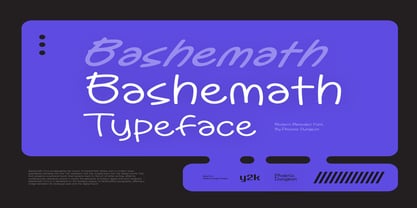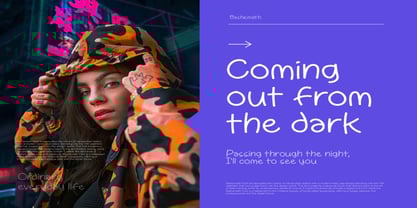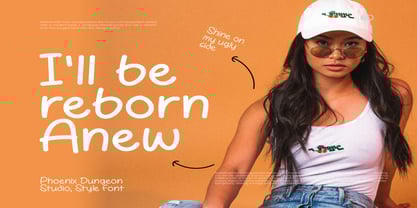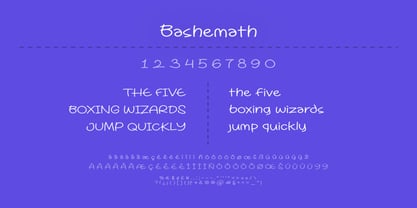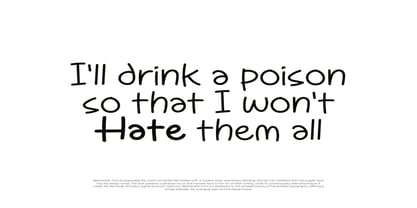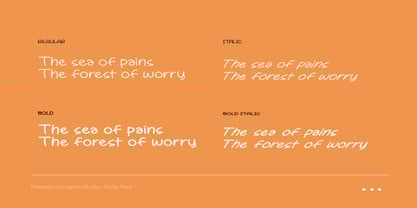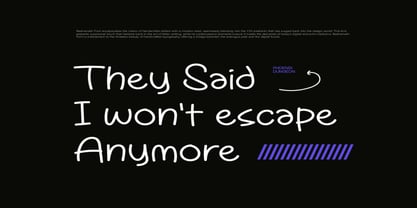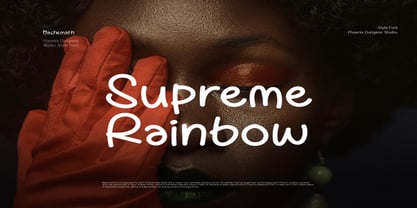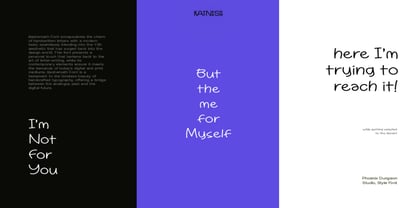
Bashemath
by Phoenix Group
The Bashemath Font Family was designed by Alif Naufal Muzakki and published by Phoenix Group. Bashemath contains 4 styles and family package options. More about this family
Bashemath Font encapsulates the charm of handwritten letters with a modern twist, seamlessly blending into the Y2K aesthetic that has surged back into the design world. This font presents a personal touch that harkens back to the art of letter-writing, while its contemporary elements ensure it meets the demands of today's digital and print mediums. Bashemath Font is a testament to the timeless beauty of handcrafted typography, offering a bridge between the analogue past and the digital future.
Designers: Alif Naufal Muzakki
Foundry: Phoenix Group